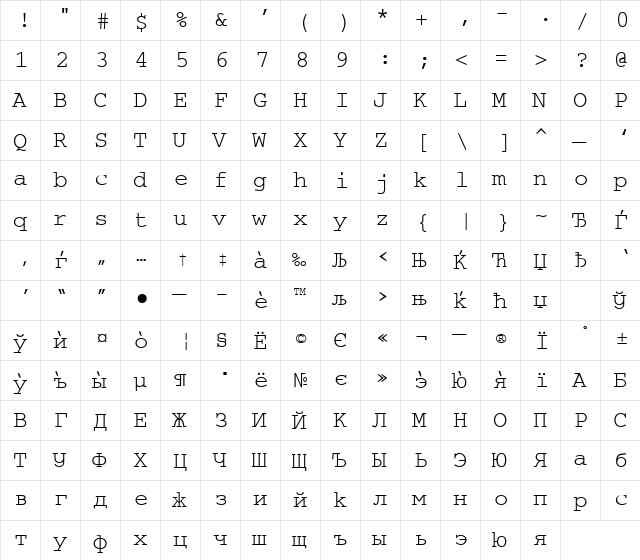
CourierCyr Regular
Design Context for CourierCyr Typeface
CourierCyr brings the precise, column-aligned rhythm of monospaced typography to designs that value technical clarity and systematic order.
A natural fit for code editors, technical documentation, developer-focused branding, and terminal-inspired UI.
Pro Tip: Pair CourierCyr with a proportional sans for UI contexts where code-style labels and regular body copy need to coexist.